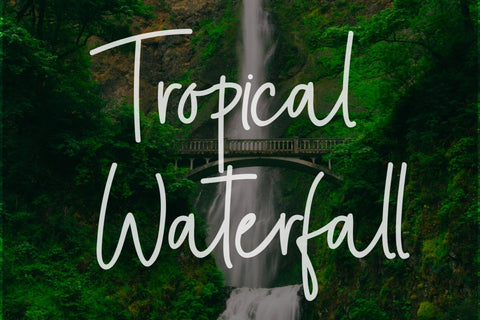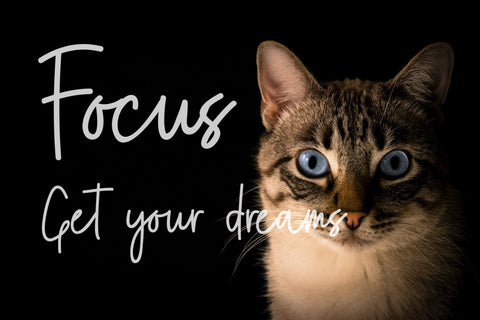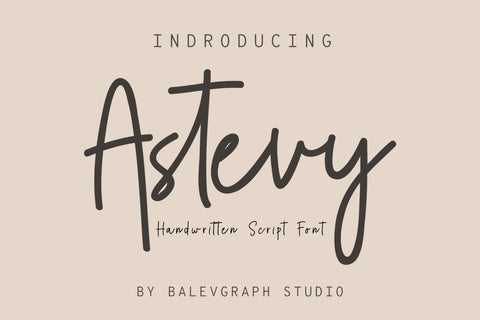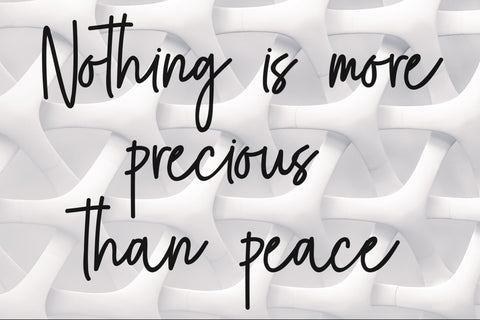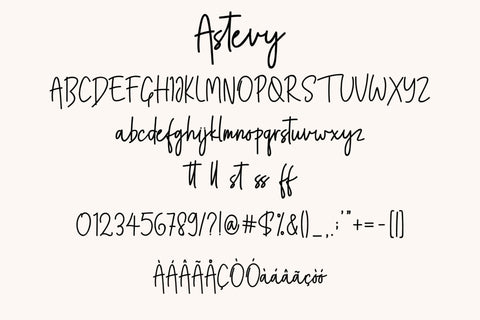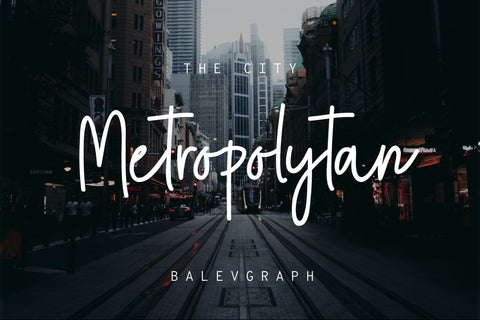
Astevy - Handwritten Script Font
Astevy is a unique and elegant handwriting.
Astevy would perfect for photography, watermark, social media posts, advertisements, logos & branding, invitation, product designs, label, stationery, wedding designs, product packaging, special events or anything that need handwriting taste.
- Tone of glyphs (include Uppercase, Lowercase, Numerals & Punctuations, Ligature, Multilingual)